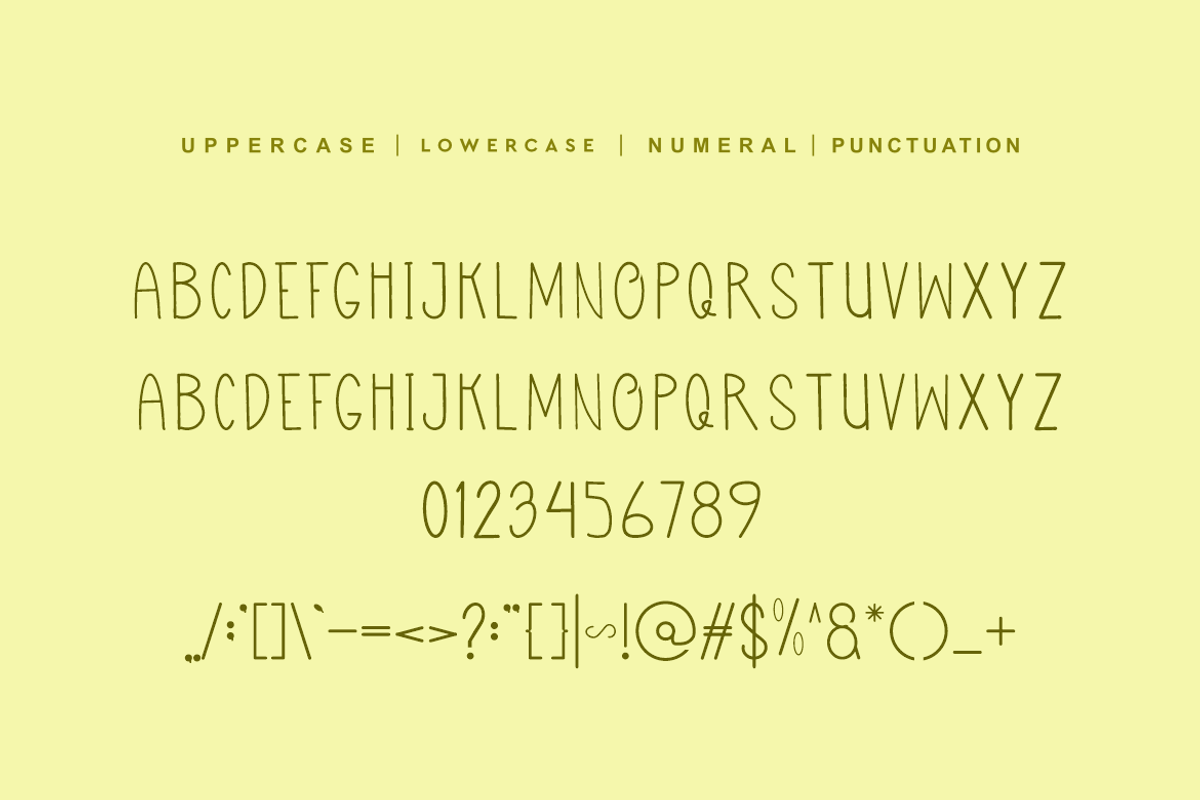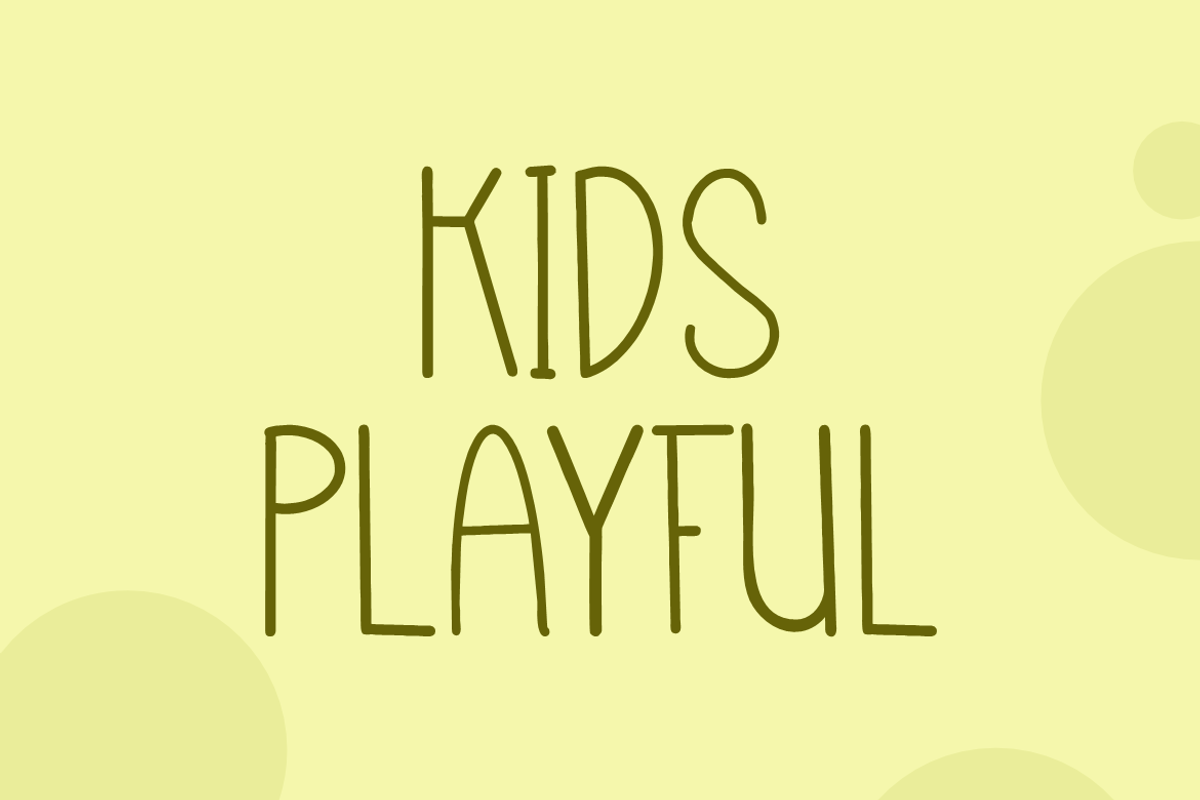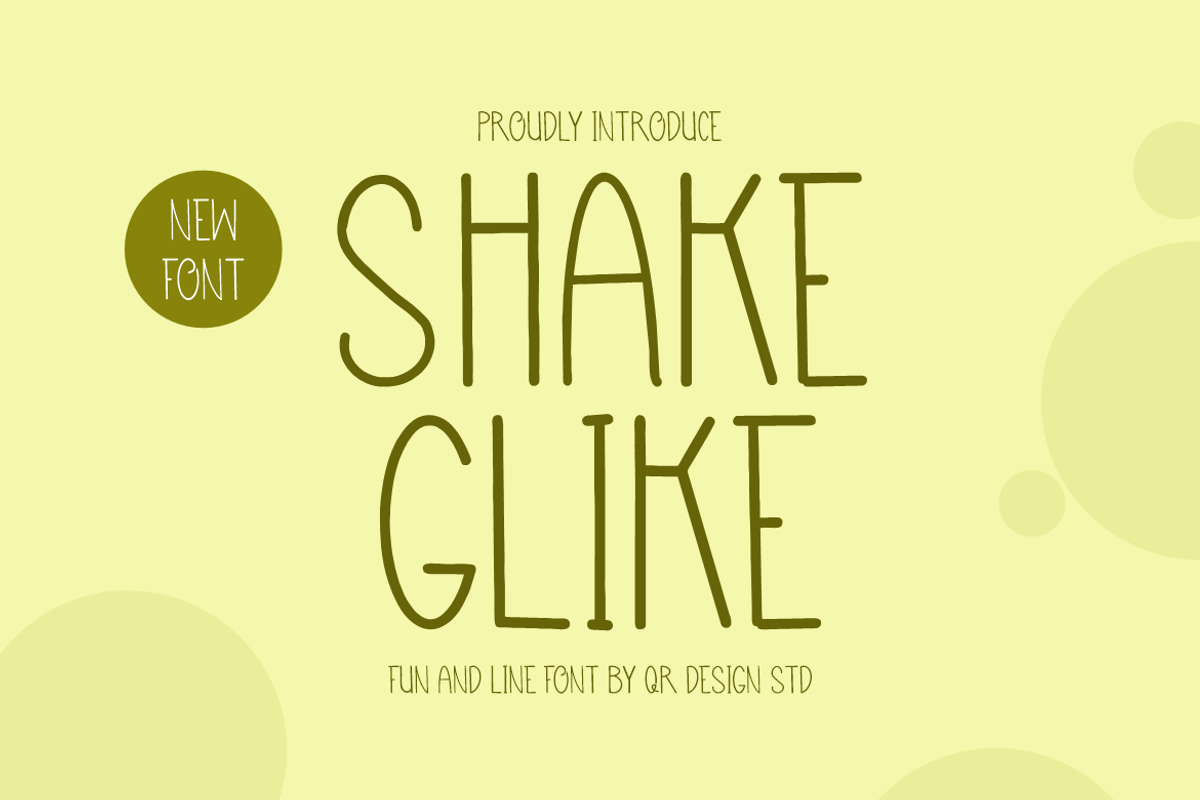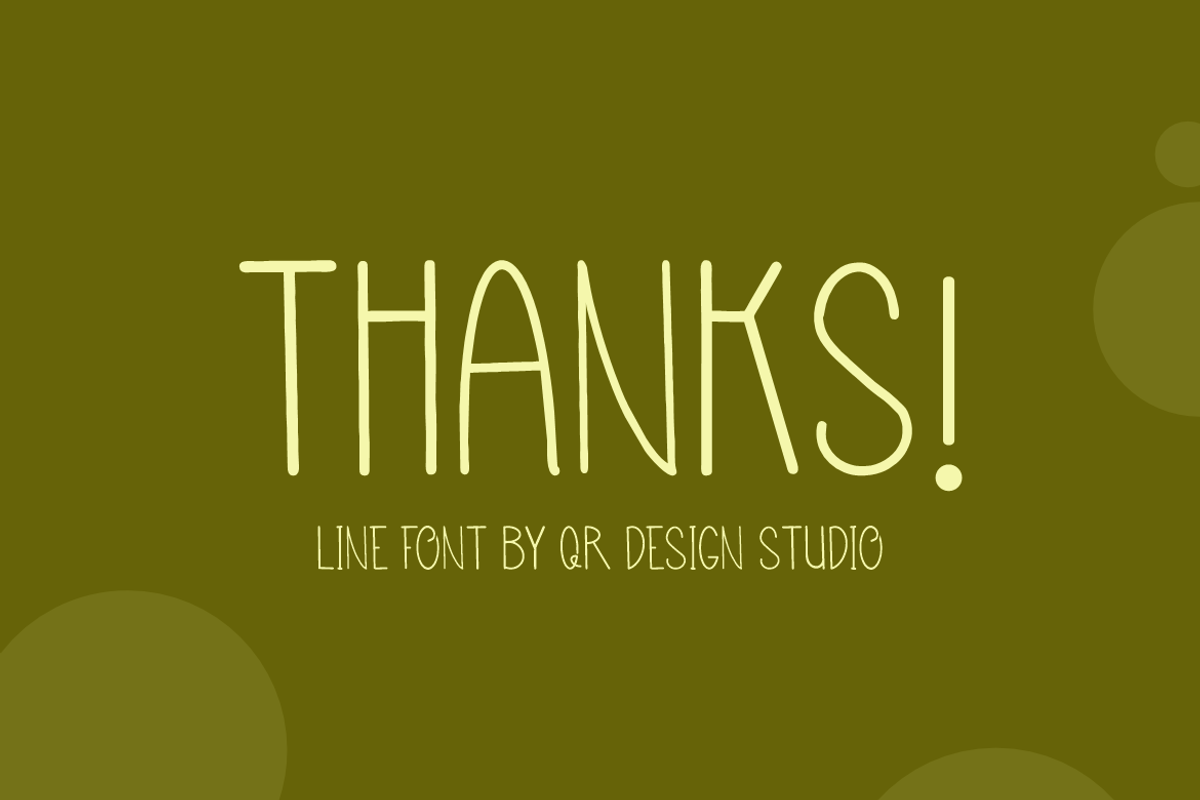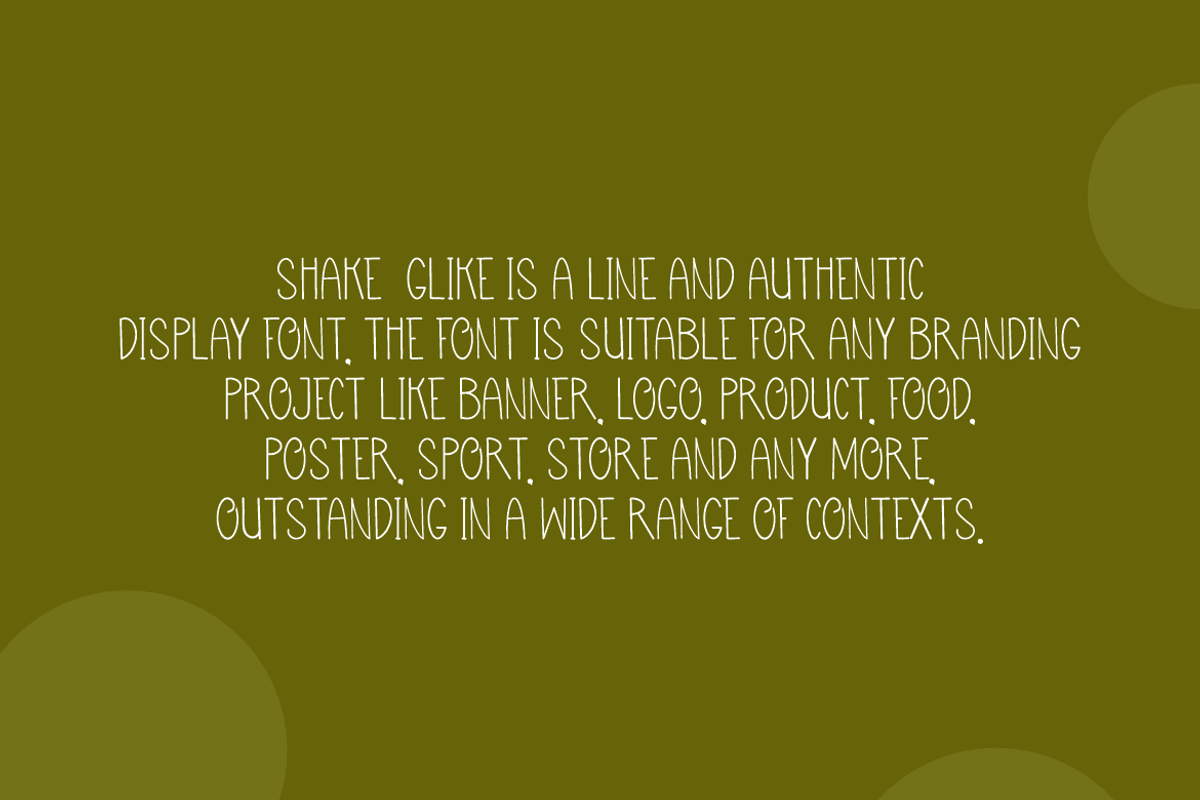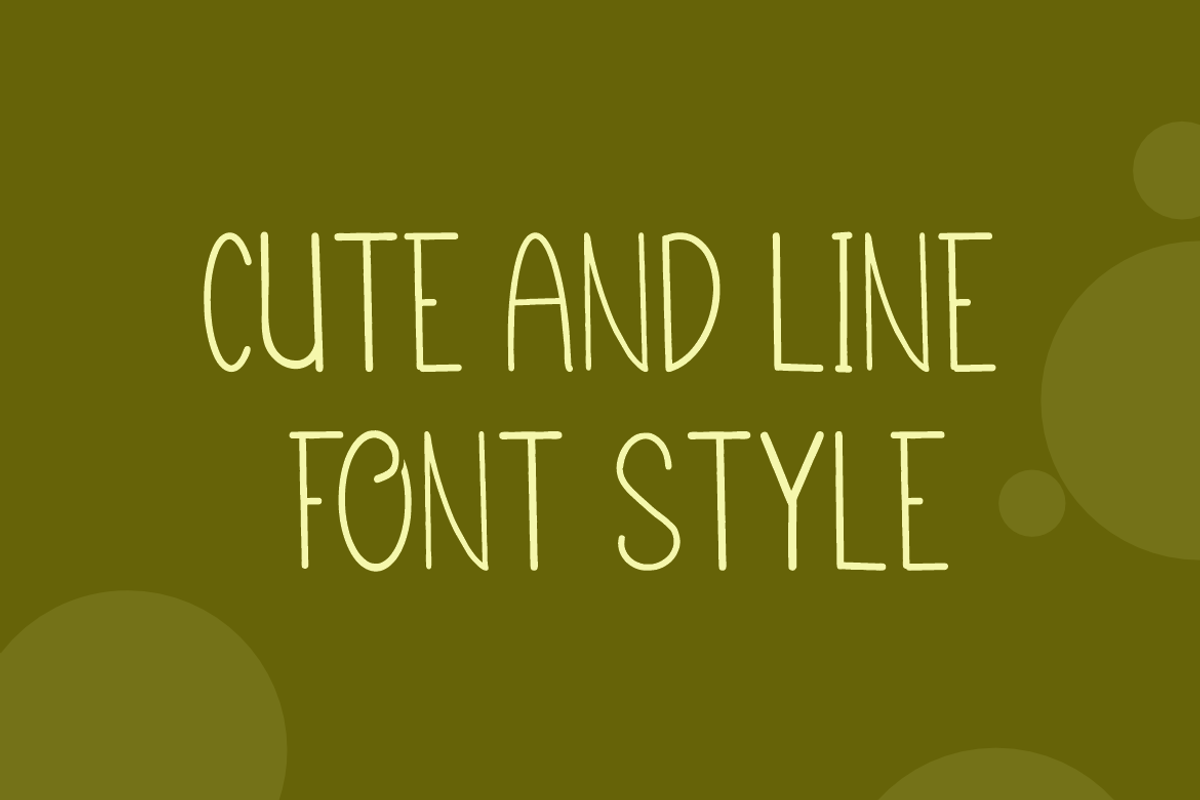
Shake Glike Font
Shake Glike Font is a line and authentic display font. The font is suitable for any branding project like poster, logo, sport, and many more. Outstanding in a wide range of contexts.